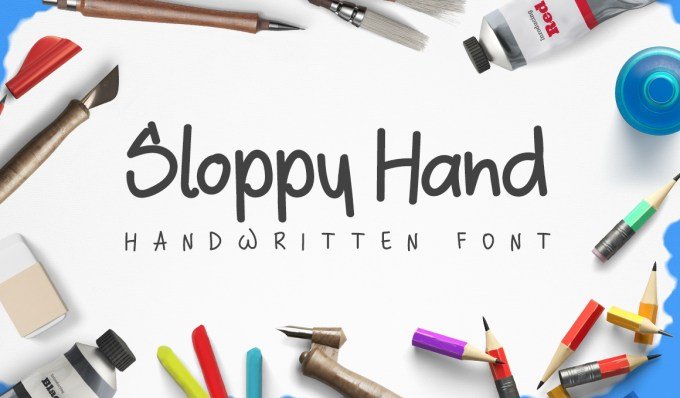
Sloppy Hand Font
A free style handwriting new. Introducing Handwritten Sloppy Hand Free Font. Sloppy is designed and shared by Design A Lot. This is a very rough handwriting style but very close, it is designed Wacom Intuos Pro S tablet on, and edit in Illustrator and Fontself. Sloppy Hand Font can be used for logo design, presentations, headlines. Works great with taglines and with any playful design you might be working on.